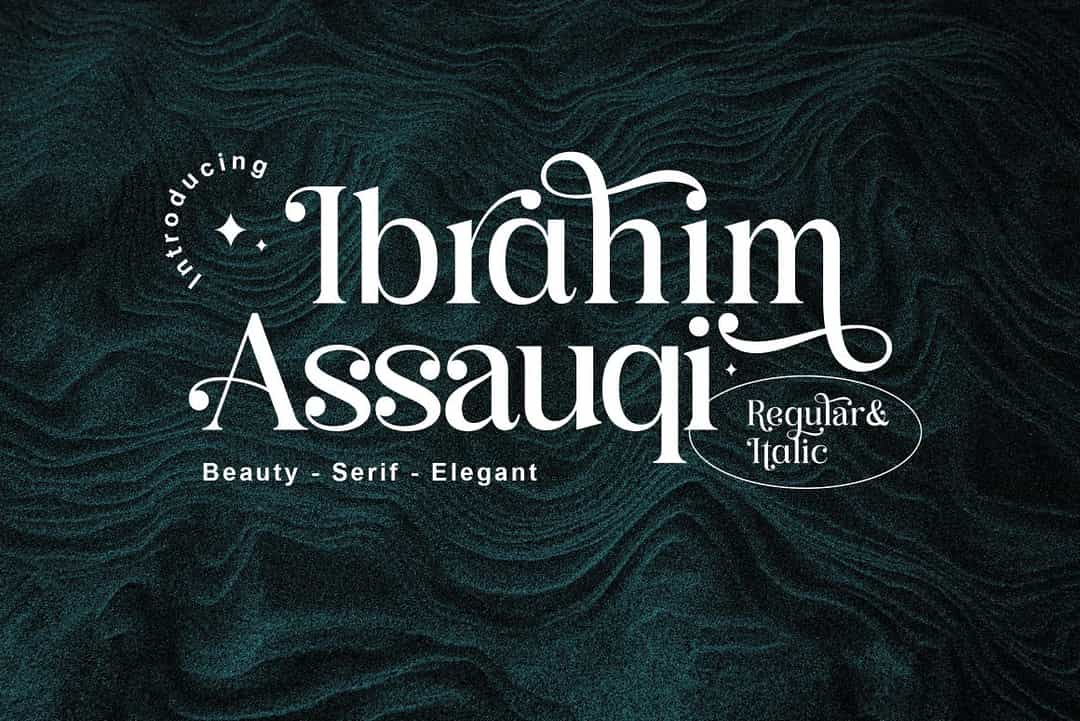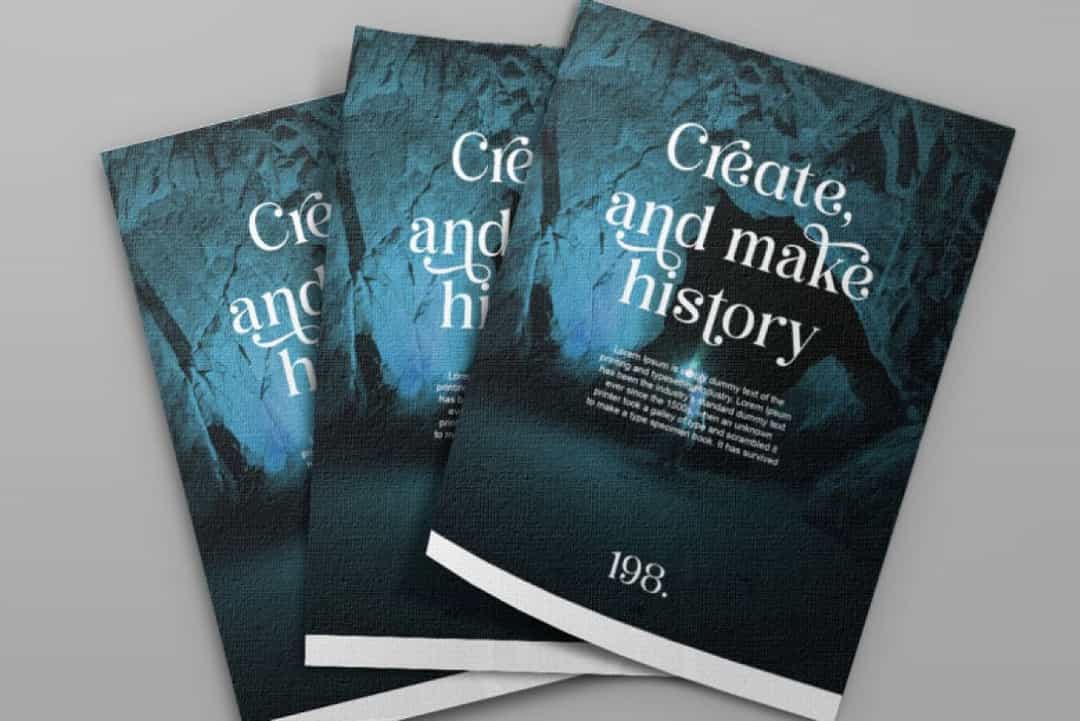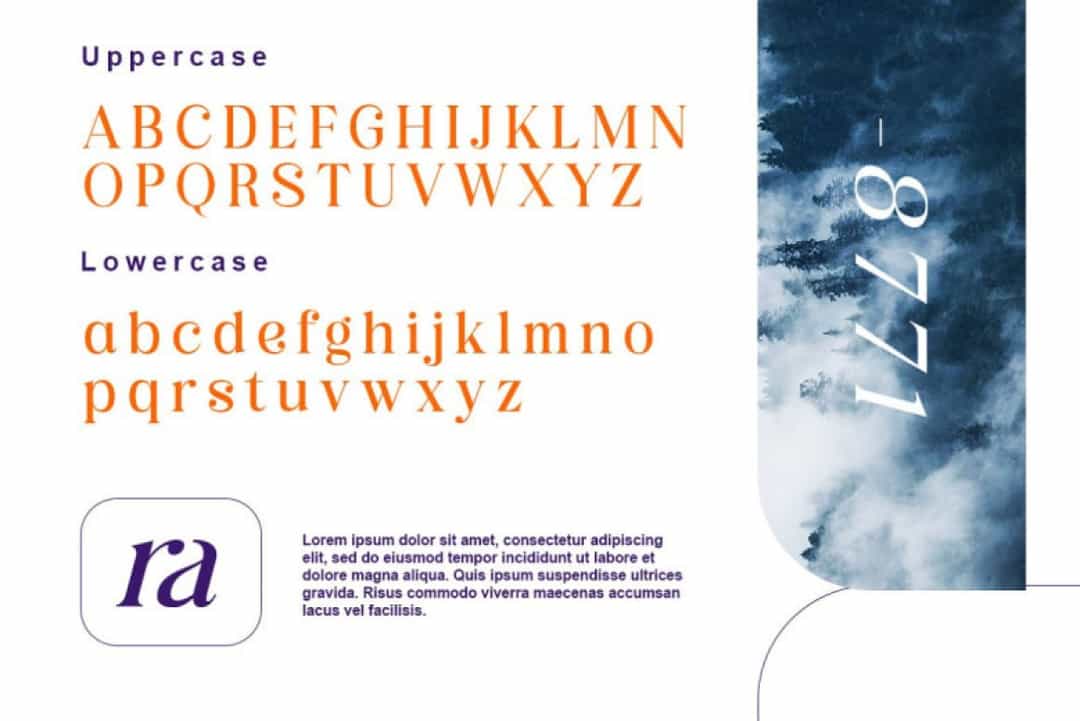
Discover IbrahimAsSyauqi Font, part of the Serif collection—a versatile and unique font perfect for adding a personal touch to your projects. Download it for free and enjoy crafting designs with style, from invitations to social media posts. This font is available exclusively for personal use, giving you the freedom to create without limits. Unlock your creativity with IbrahimAsSyauqi Font today!
IbrahimAsSyauqiis a contemporary serif font with punctuation glyphs, numerals and multilingual support. Additionally, stylistic alternative fonts for lowercase characters can also be provided – making this font perfect for logos, branding projects, design work and clothing labelling packaging magazines as well as headers on magazine covers or as text overlay on photographs of any background picture.